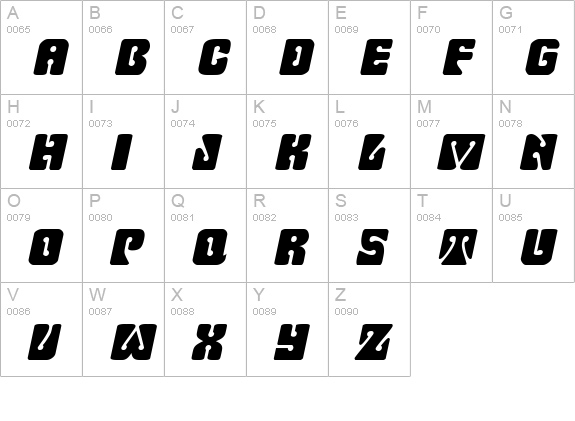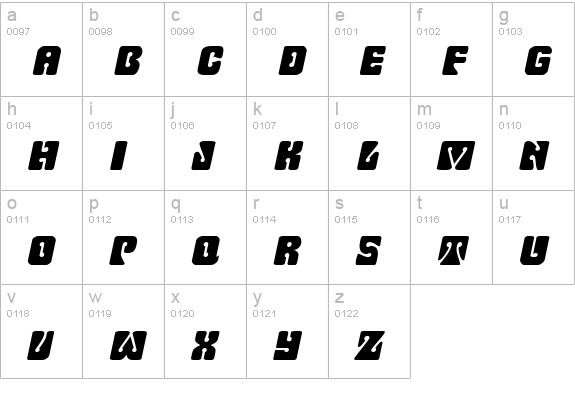
WavyOrnamental Oblique is a distinctive, italic variant in the WavyOrnamental typeface family \xE2\x80\x94 well suited to design and typography projects.
WavyOrnamental Oblique font is a mesmerizing and artistic typeface that will add a touch of elegance and sophistication to any design project. Its unique and intricate curves create a captivating flow, reminiscent of delicate waves gently crashing onto a sandy shore. The ornamental details gracefully intertwine, forming a harmonious balance between intricacy and legibility. The WavyOrnamental Oblique font is perfect for adding a touch of luxury to invitations, wedding stationery, branding materials, and any design that requires a touch of opulence. Its versatility allows it to seamlessly blend into any design style, whether it be vintage, modern, or even futuristic. One of the most exceptional features of the WavyOrnamental Oblique font is that it is freely available to download at FontsMarket.com. This means that designers, creatives, and enthusiasts alike can access this stunning typeface without any cost. The availability of this font for free allows for endless possibilities and encourages creativity to flourish. The WavyOrnamental Oblique font is designed with utmost precision and attention to detail, ensuring that every character is flawlessly crafted. The slanted and slightly italicized nature of the font adds a touch of dynamism and flair, making it an excellent choice for headlines, titles, and emphasis in any design composition. Whether you are working on a personal project, a professional assignment, or simply exploring your creative side, the WavyOrnamental Oblique font is the perfect companion. Its distinctive and captivating appearance will undoubtedly leave a lasting impression on any audience. Download the WavyOrnamental Oblique font for free at FontsMarket.com and let your imagination take flight. With this font, your designs will exude an air of sophistication and elegance, making them truly stand out from the crowd.